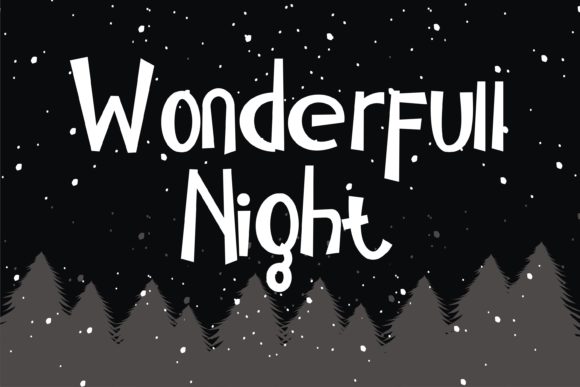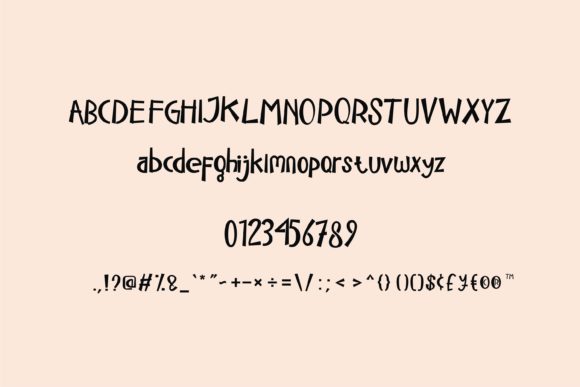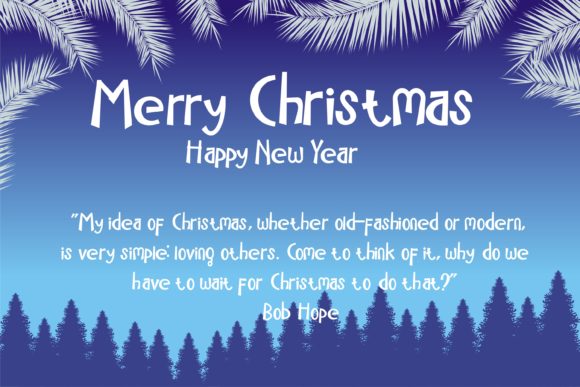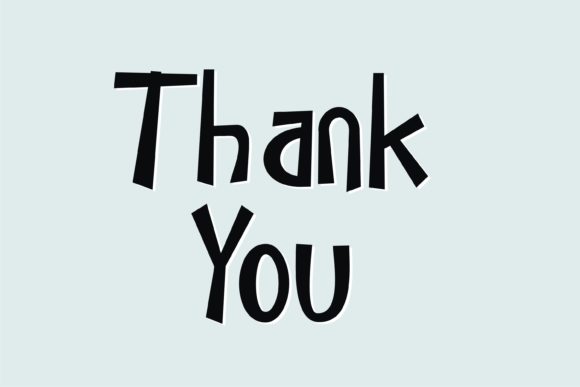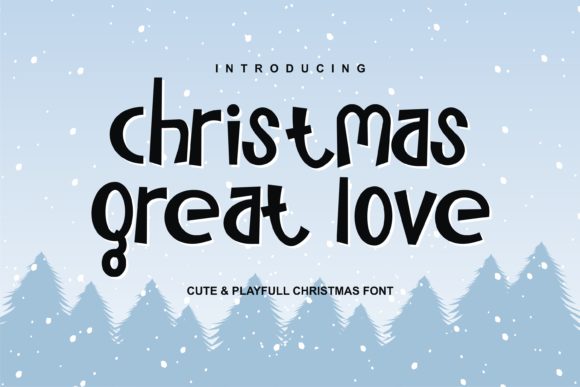
Christmas Great Love Font: Add a Touch of Whimsy to Your Designs
Are you looking for a font that will add a dash of fun and quirkiness to your designs? Look no further than the Christmas Great Love Font! This delightful display font is perfect for designers and crafters who want to create spectacular designs that capture the spirit of the holiday season.
What is Christmas Great Love Font?
Christmas Great Love is a fun and quirky display font that is sure to make your ideas stand out. With its unique and playful design, this font is perfect for creating eye-catching titles, headings, and graphics for your Christmas-themed projects. Whether you’re designing holiday cards, gift tags, or social media graphics, this font is sure to add a touch of whimsy and personality to your work.
Key Features of Christmas Great Love Font
- Unique and Playful Design: Christmas Great Love Font features a one-of-a-kind design that is sure to grab attention. Its quirky and fun style makes it perfect for creating designs that stand out from the crowd.
- Display Font: This font is specifically designed as a display font, making it perfect for titles, headings, and short phrases.
- Scalable: This font is highly scalable, allowing you to use it for a wide range of projects, from small gift tags to large billboards.
Uses for Christmas Great Love Font
Christmas Great Love Font is a versatile font that can be used for a wide range of projects, including:
- Holiday Cards and Invitations: Add a touch of whimsy to your holiday cards and invitations with this fun and quirky font.
- Gift Tags and Labels: Use Christmas Great Love Font to create eye-catching gift tags and labels that will make your gifts stand out.
- Social Media Graphics: Create festive social media graphics that will grab attention and spread holiday cheer.
- Signs and Banners: Use this font to create eye-catching signs and banners for your holiday events and promotions.
Tips for Using Christmas Great Love Font
Here are a few tips for getting the most out of Christmas Great Love Font:
- Use it Sparingly: Because of its bold and playful design, it’s best to use Christmas Great Love Font sparingly. Use it for titles and headings, and pair it with a simpler font for body text.
- Experiment with Colors: This font looks great in a wide range of colors, so don’t be afraid to experiment and find the perfect color scheme for your project.
- Pair it with Other Fonts: Christmas Great Love Font pairs well with a wide range of other fonts, so feel free to get creative and try out different combinations.
Christmas Great Love Font is a fun and quirky display font that is sure to add a touch of whimsy to your designs. With its unique and playful design, this font is perfect for creating eye-catching titles, headings, and graphics for your Christmas-themed projects. Whether you’re a designer or crafter, this font is sure to become a favorite in your collection. So why wait? Download Christmas Great Love Font today and start creating spectacular designs that capture the spirit of the holiday season!